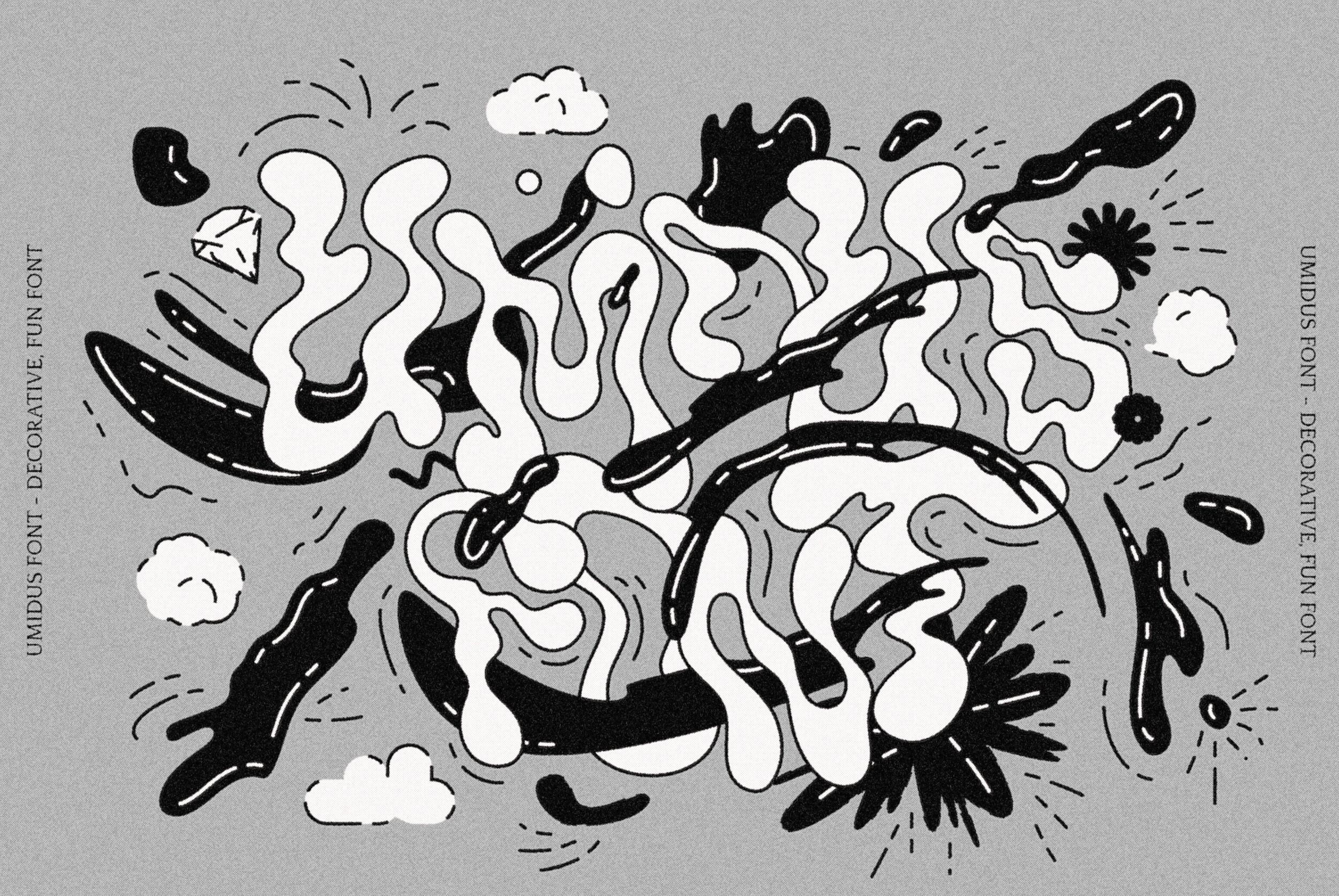
Umidus Font - Trippy Liquid Font
Umidus font - Trippy wavy liquid decorative font, which works perfectly for bold titles, Festival posters, as a graphic element for bright T-shit or hoodies, or even backgrounds! This weird and ugly font likes an experiment with spacing and different deformation. Please, don't hold back on your bold modern ideas!